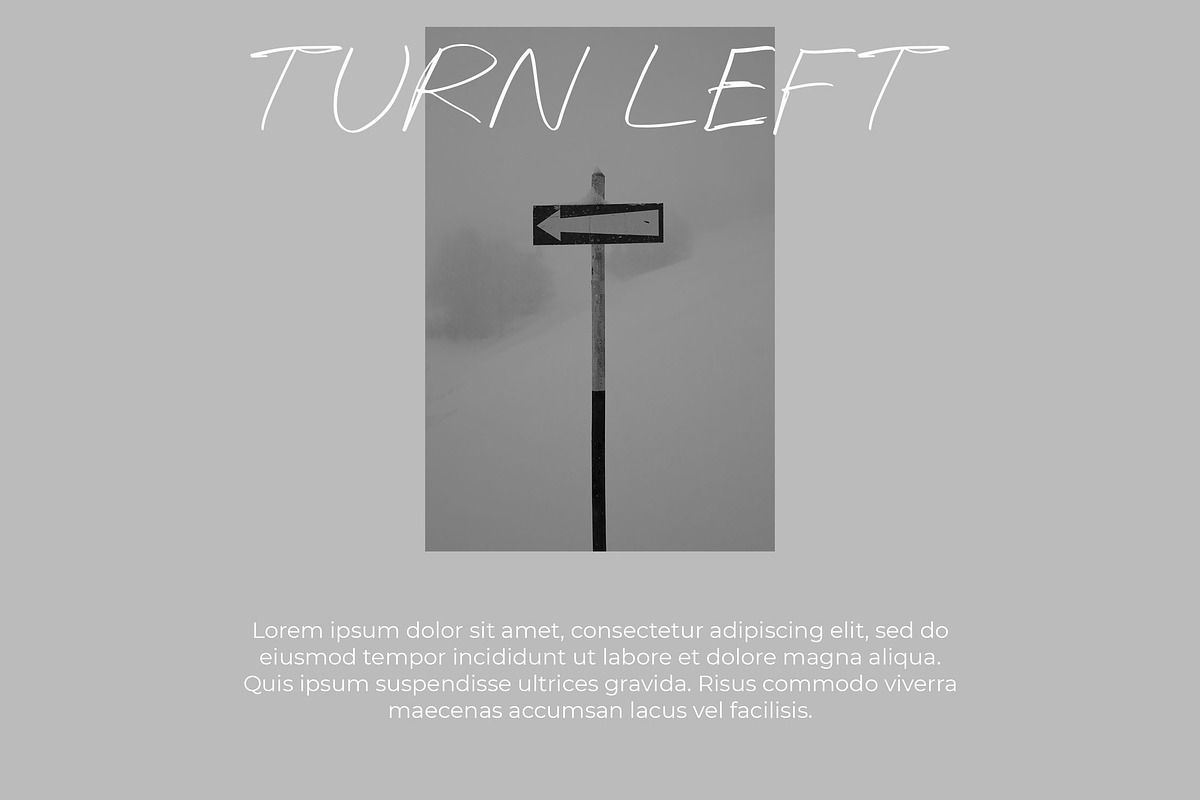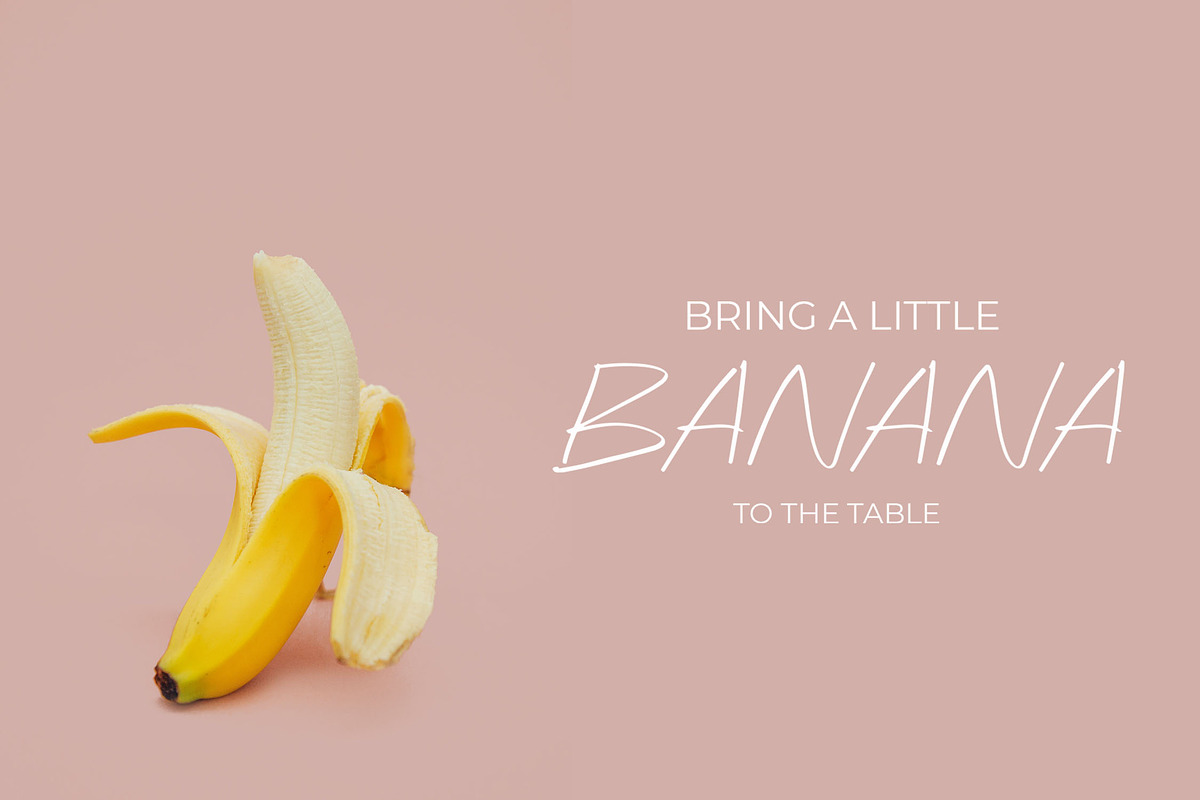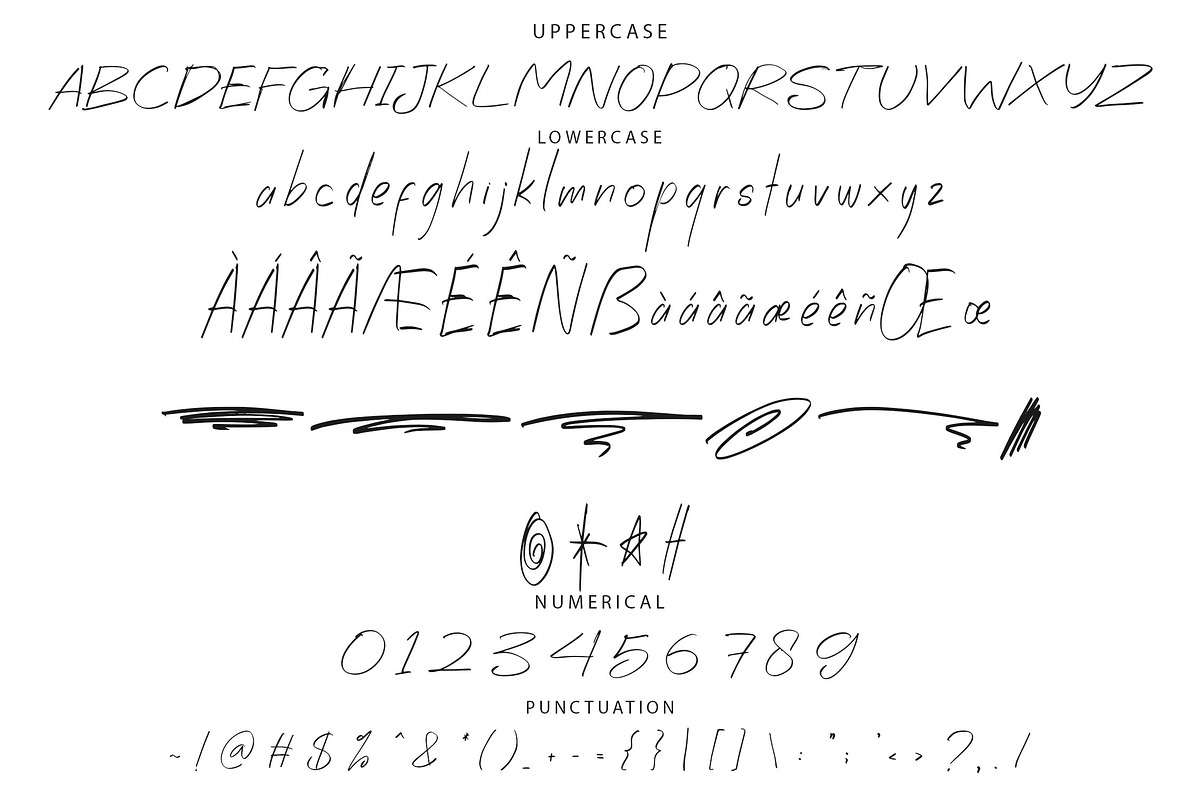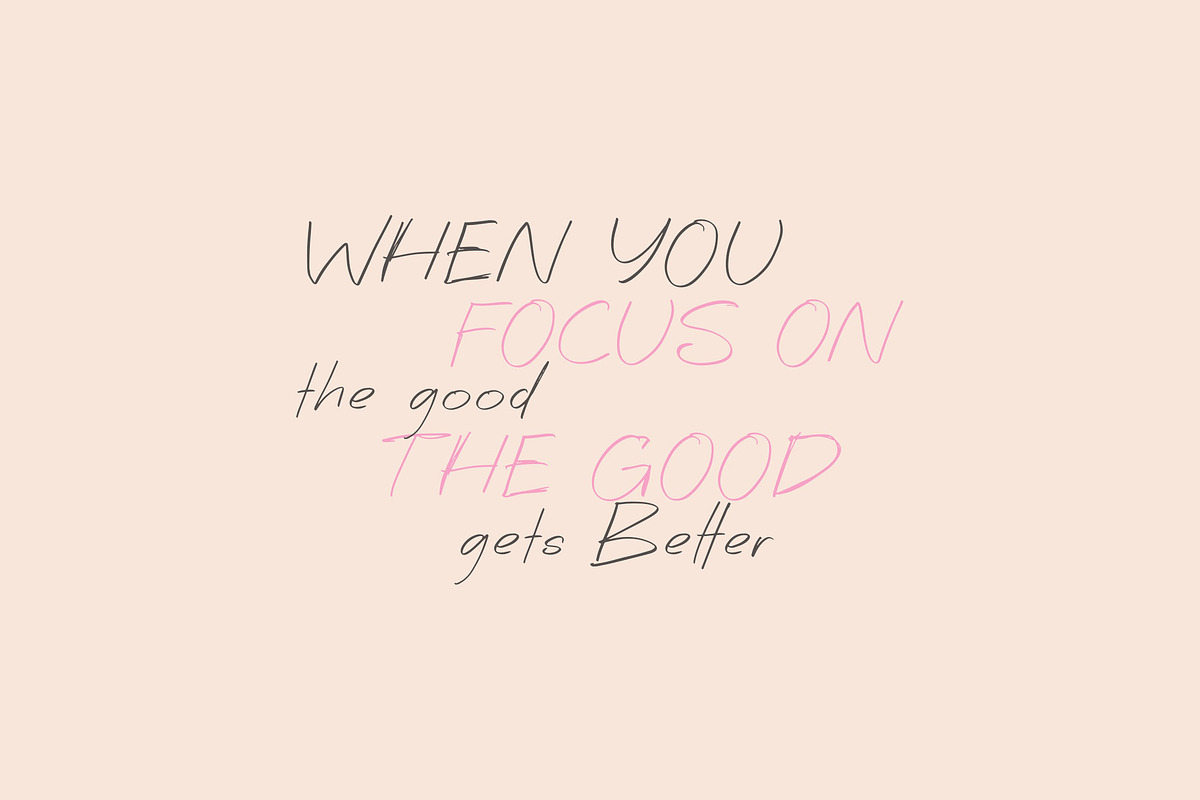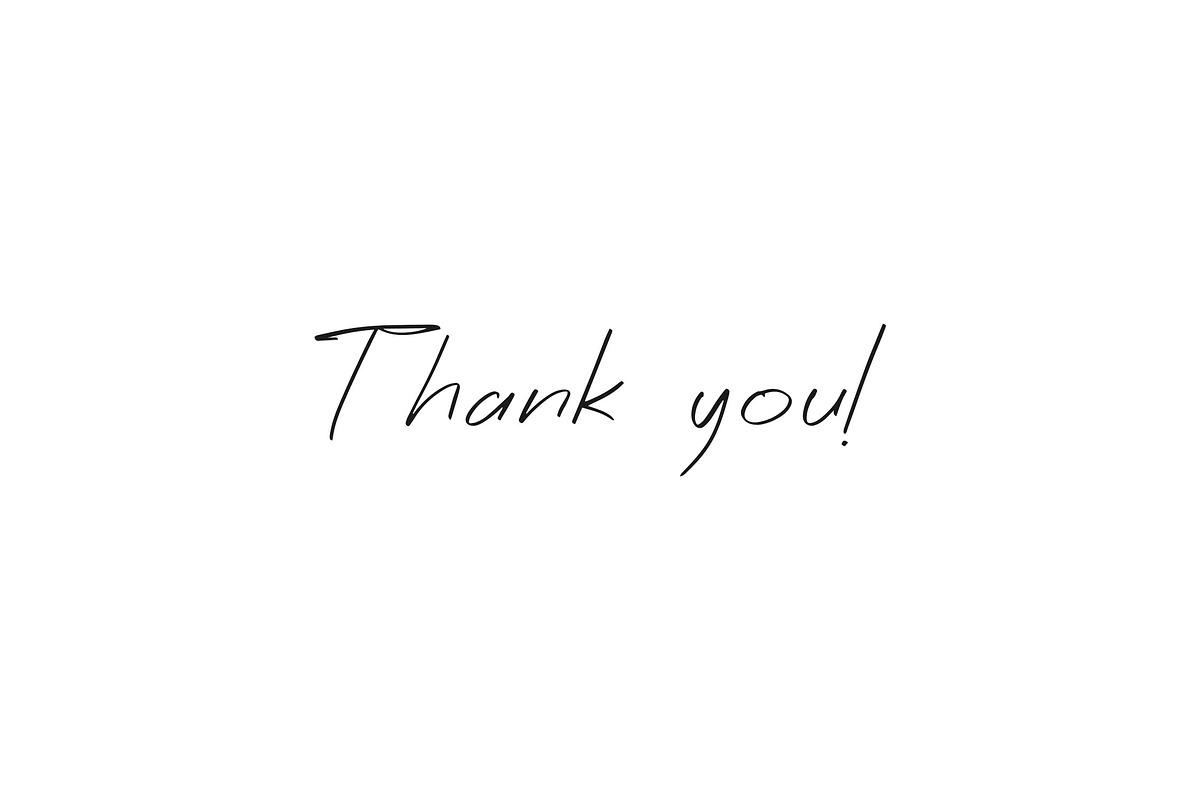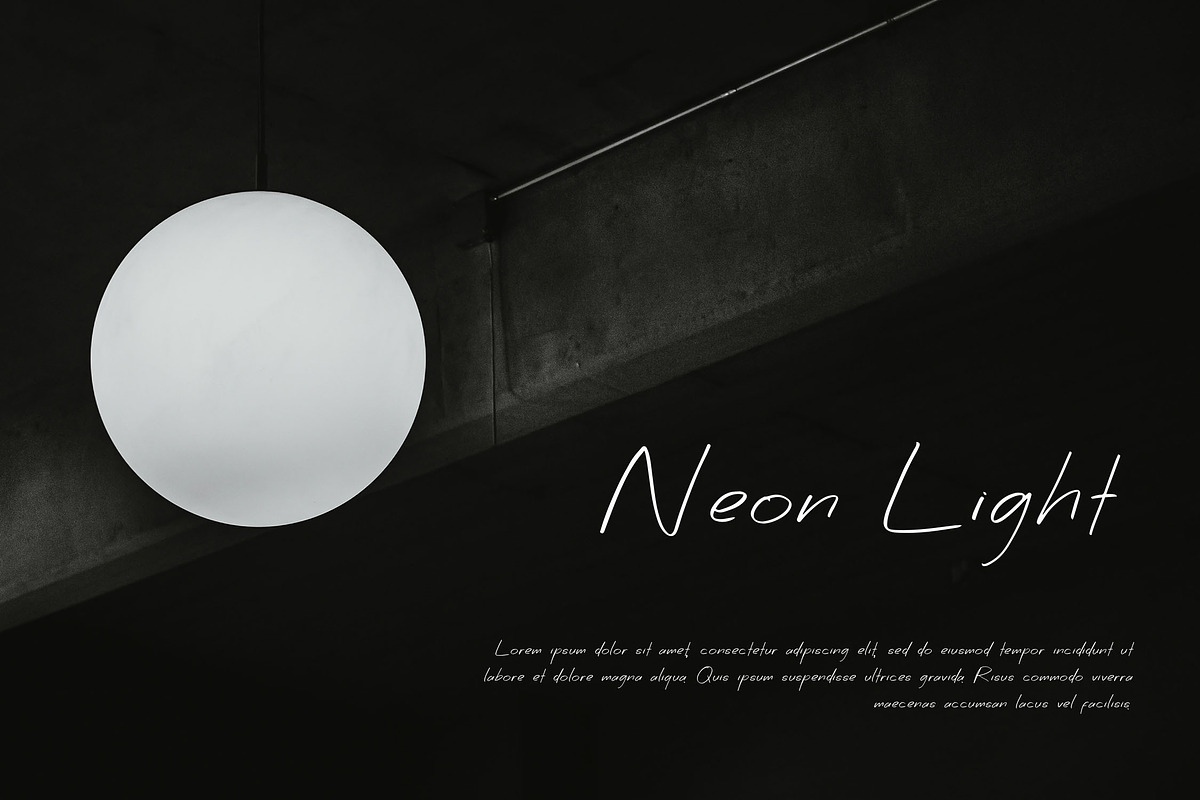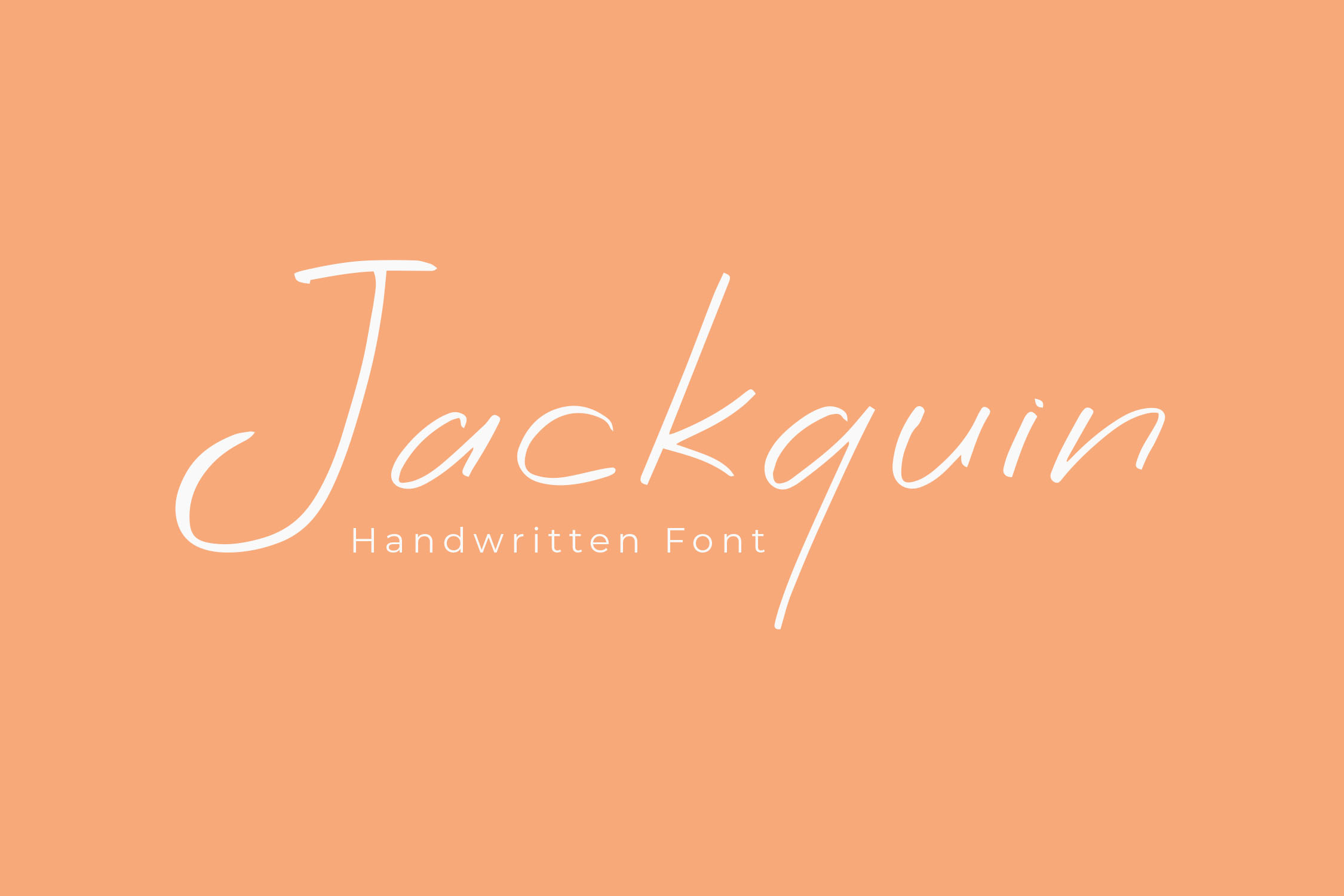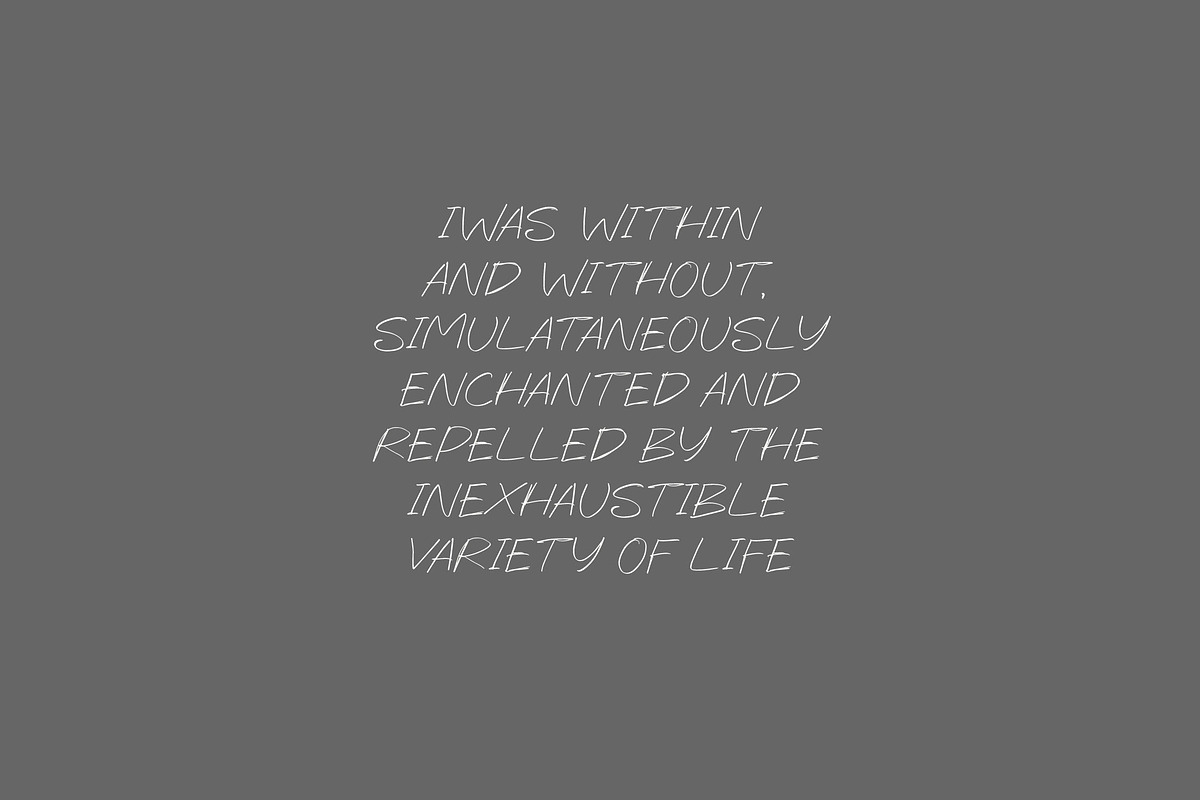
Jackquin Handwriting Font
Jackquin - Bold Rough Handbrush Handwriting Font
Jackquin is a dynamic handwriting font with a rough handbrush style, designed to give your projects a bold, handcrafted look. Its unique character shapes make it ideal for adding personality and flair to branding, packaging, posters, and more. Jackquin enhances the visual appeal of any design with its raw and artistic vibe.
- Includes ligatures, stylistic alternates, and swashes
- Multilingual support for global use